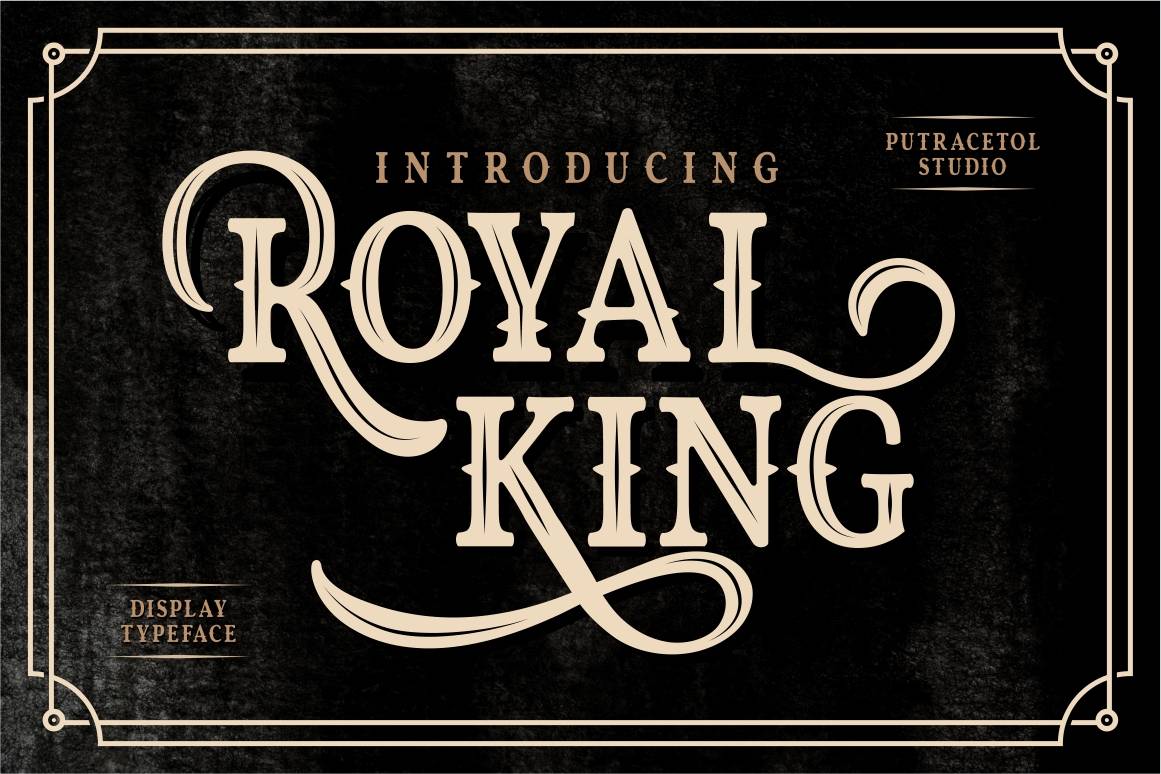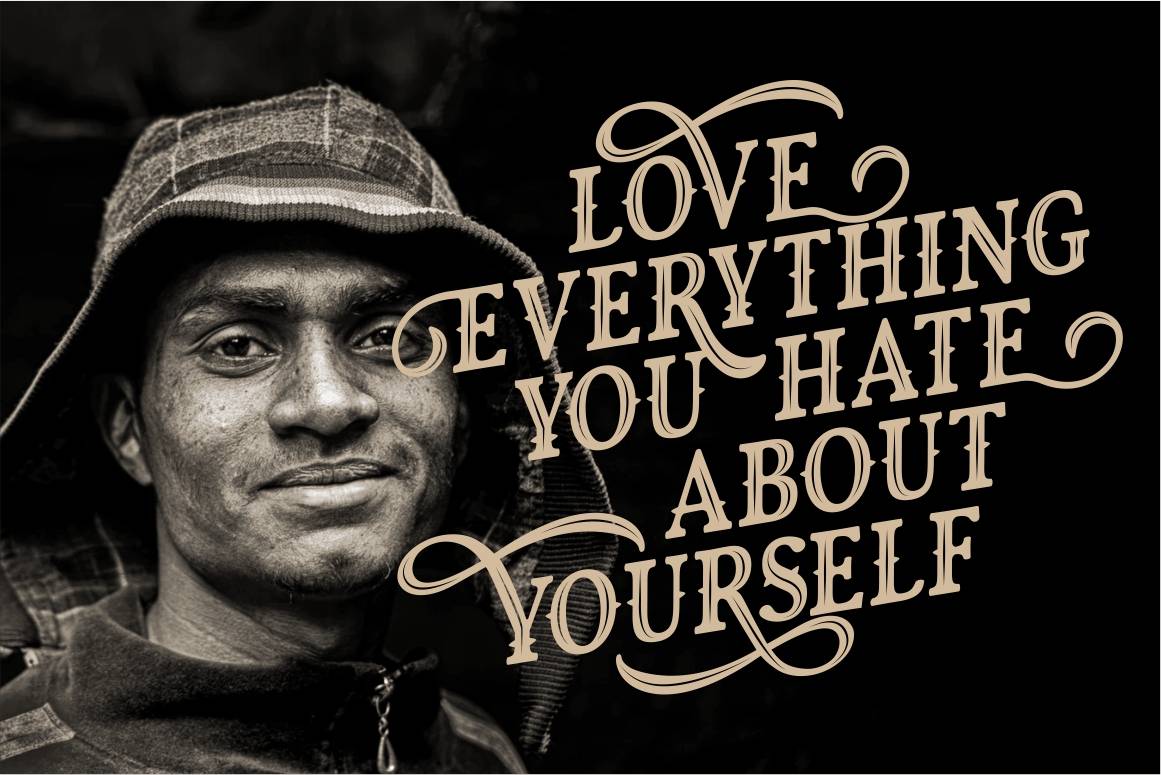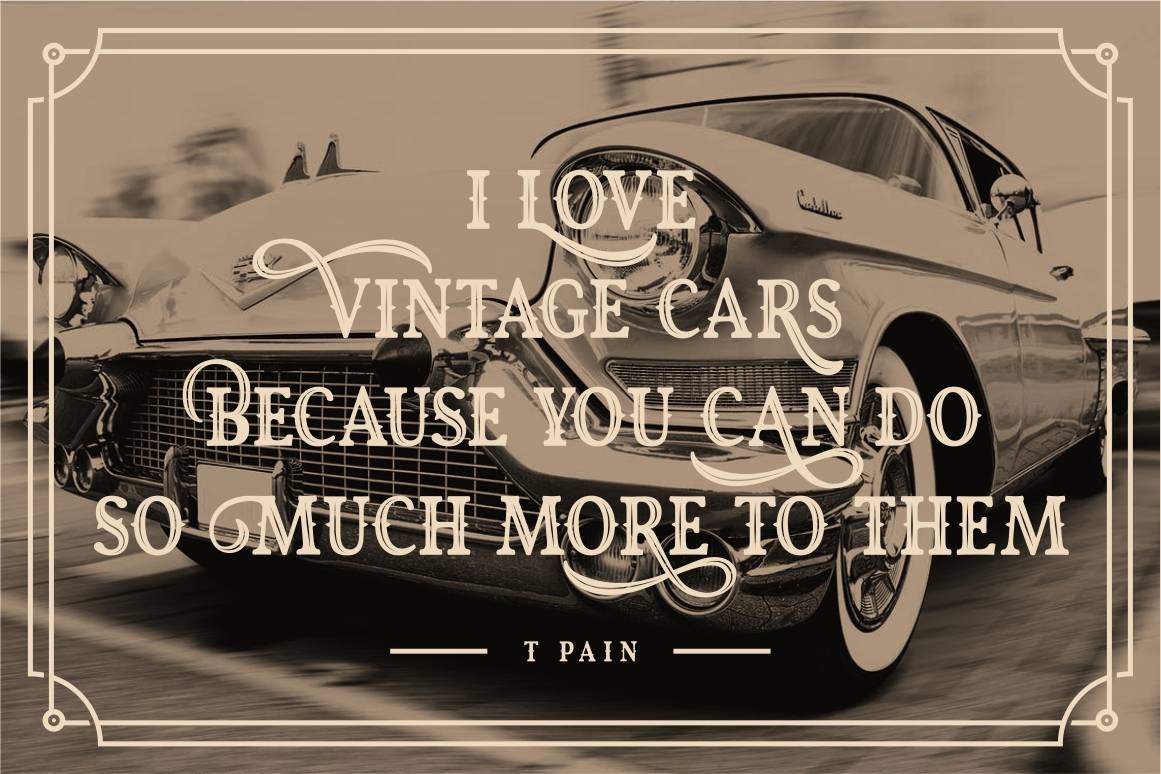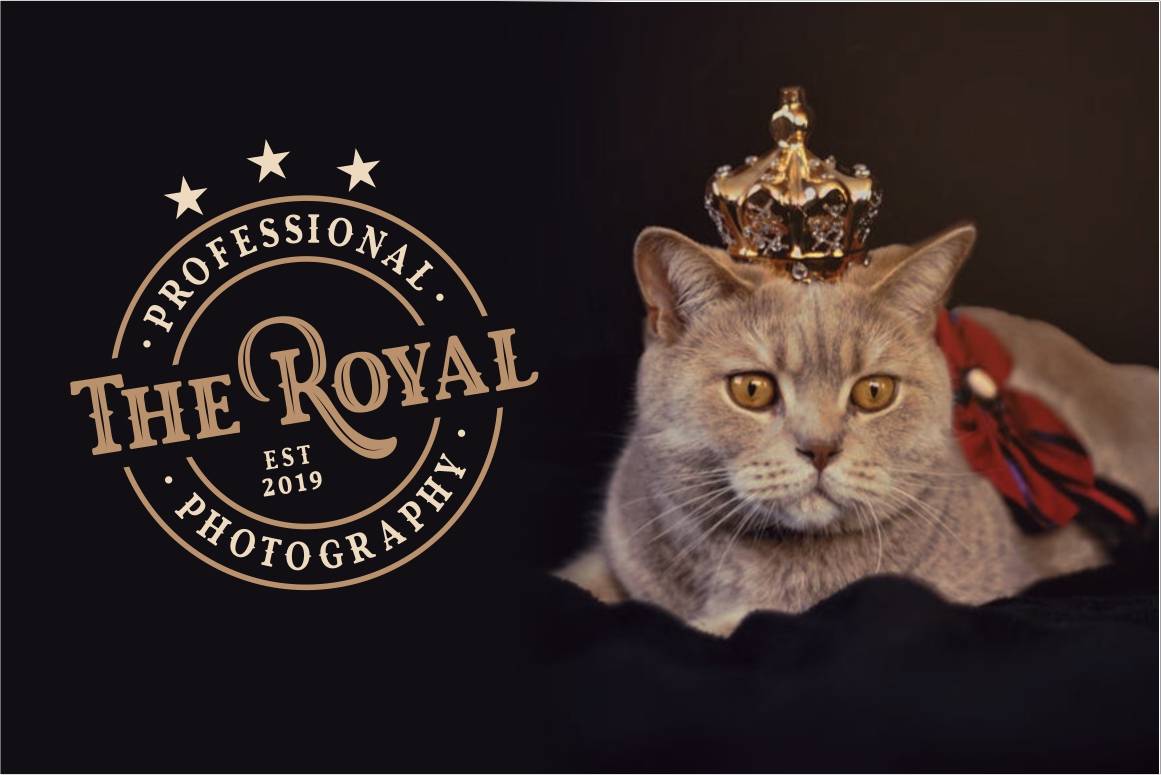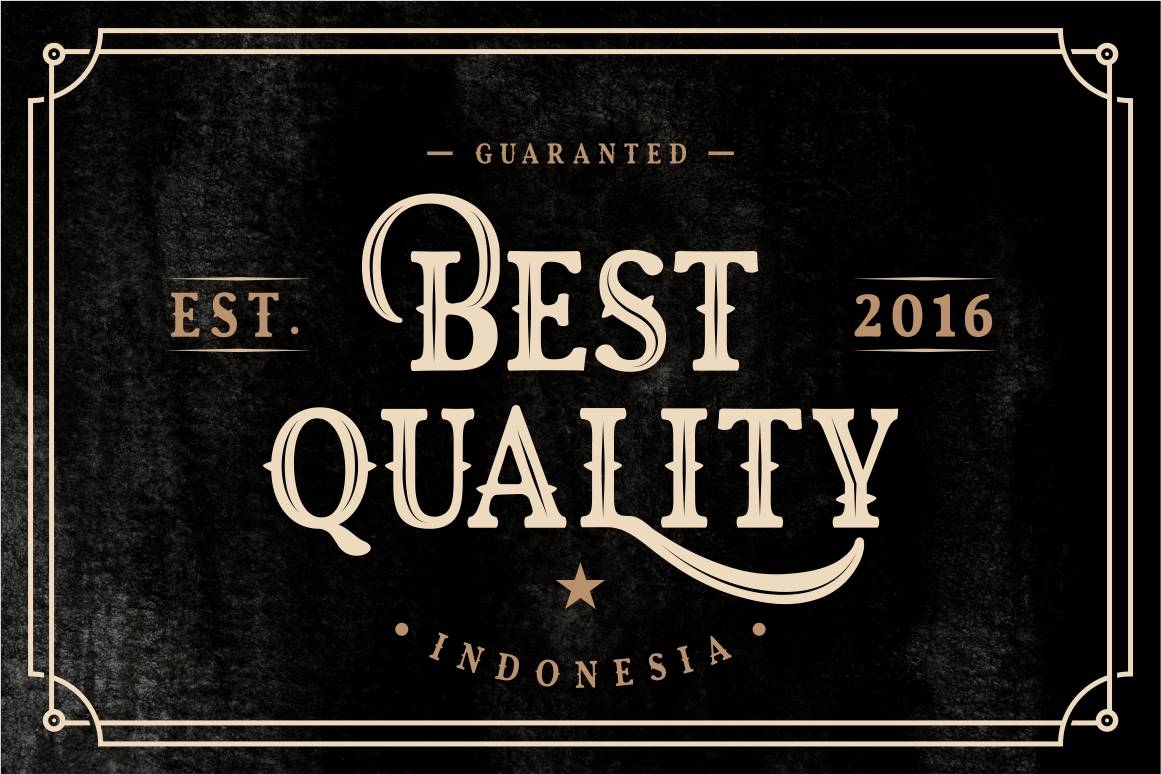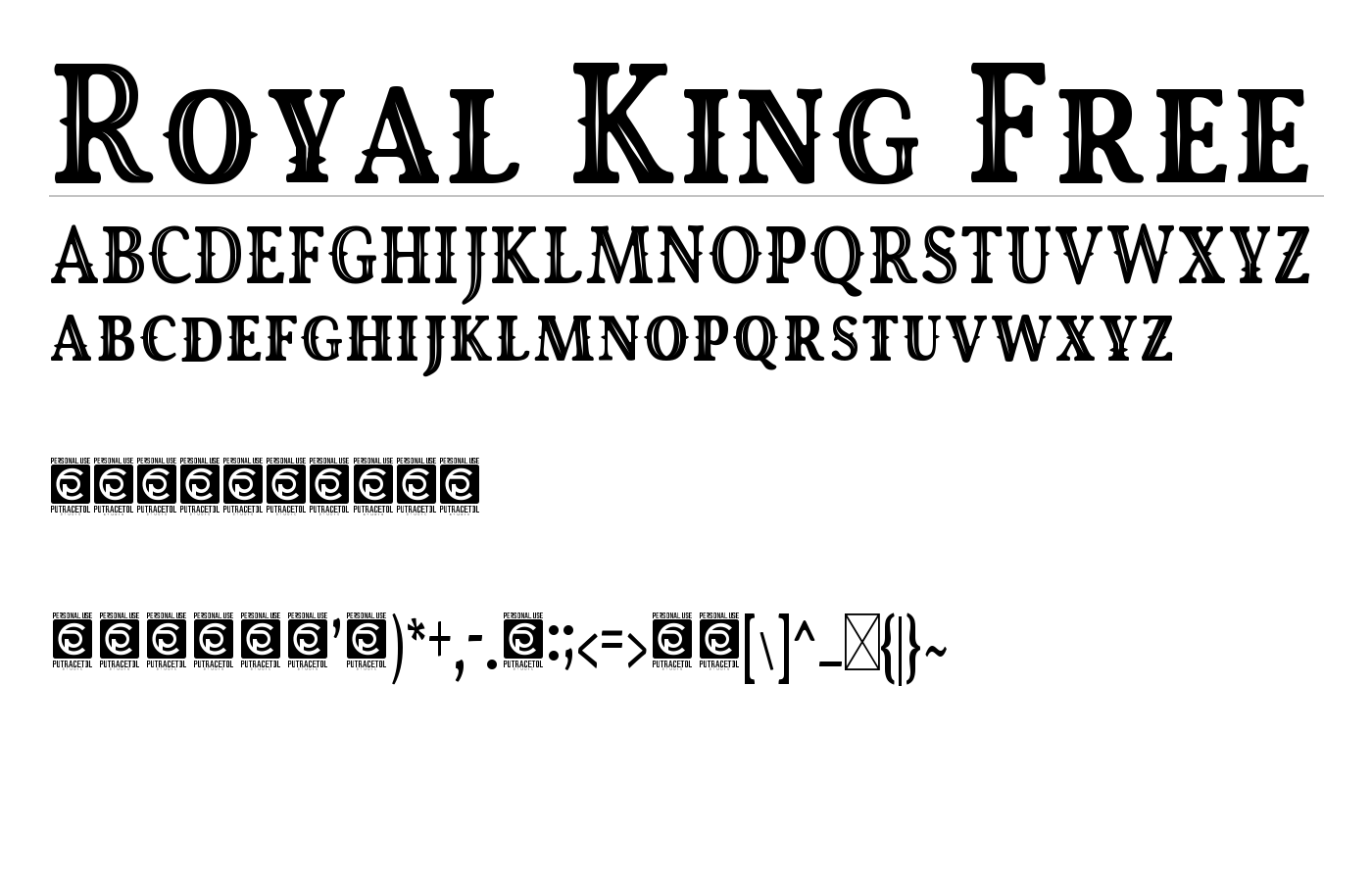
Royal King is a bold slab serif font with a vintage, decorative flair, characterized by its thick serifs and distinctive, playful shapes that create a commanding yet elegant look. Its strong presence and unique letter details make it perfect for headlines, logos, and branding where a classic, royal, or old-western mood is desired. This font works especially well in designs that need to convey tradition and bold style with a touch of personality.
Royal King
About Royal King
| Font family | Royal King |